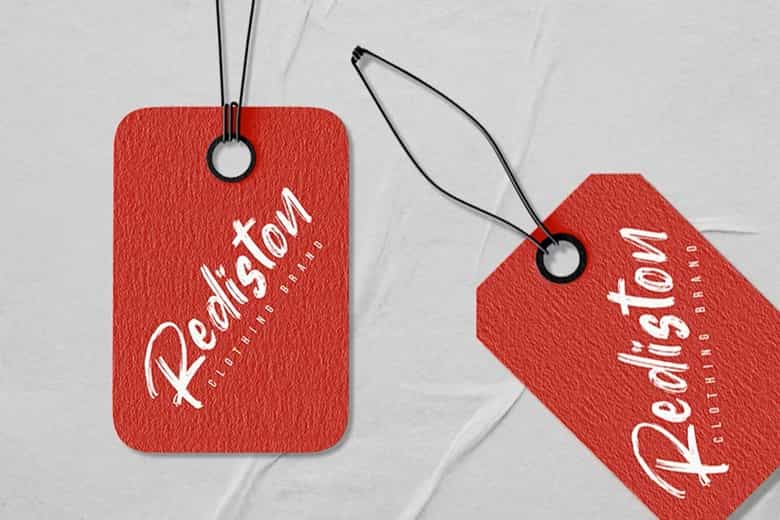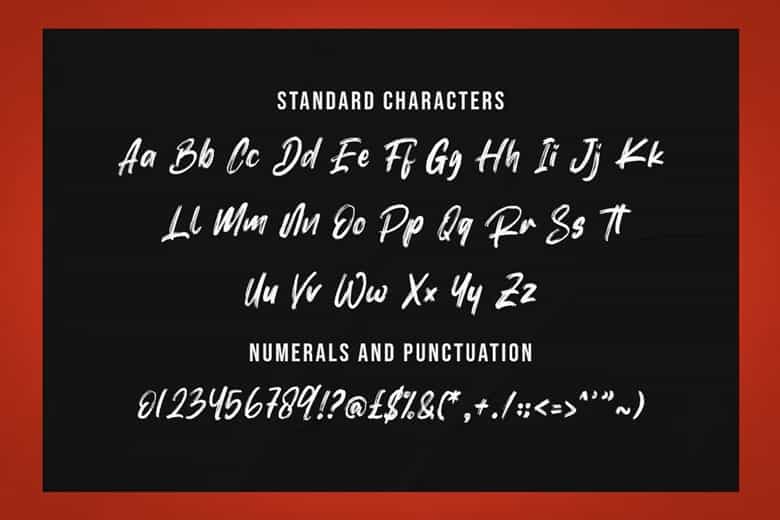
Rottweiler is a modern hand brush script typeface that would fit into modern design projects. Overlapping the strokes on accents caused difficulty. Such accented letters do shine with this font, which gives it a slightly aggressive edge.